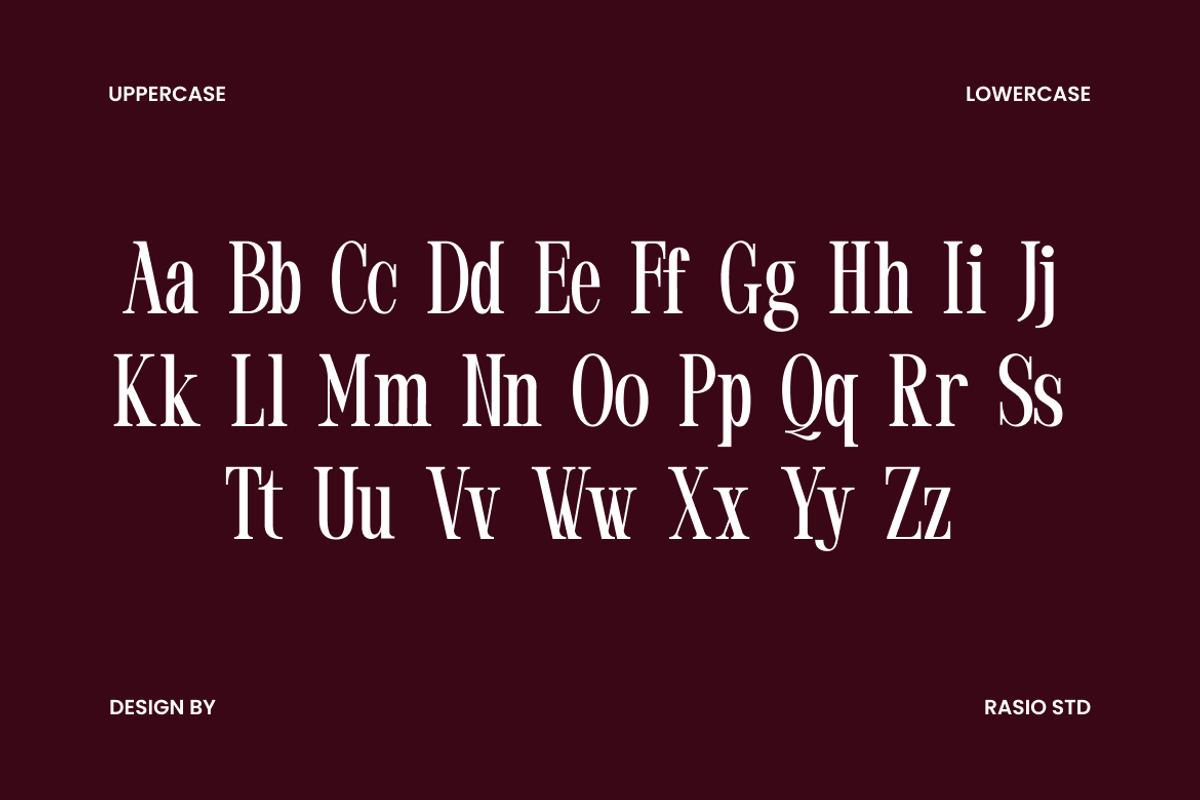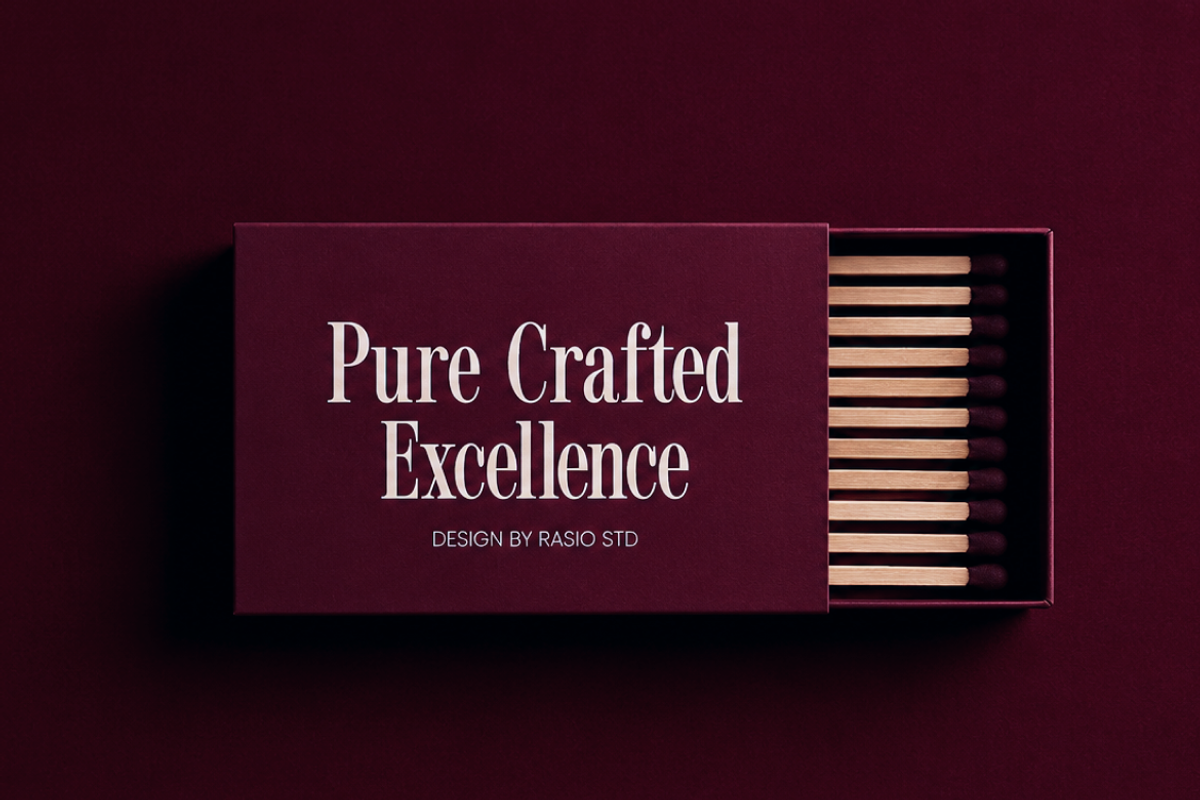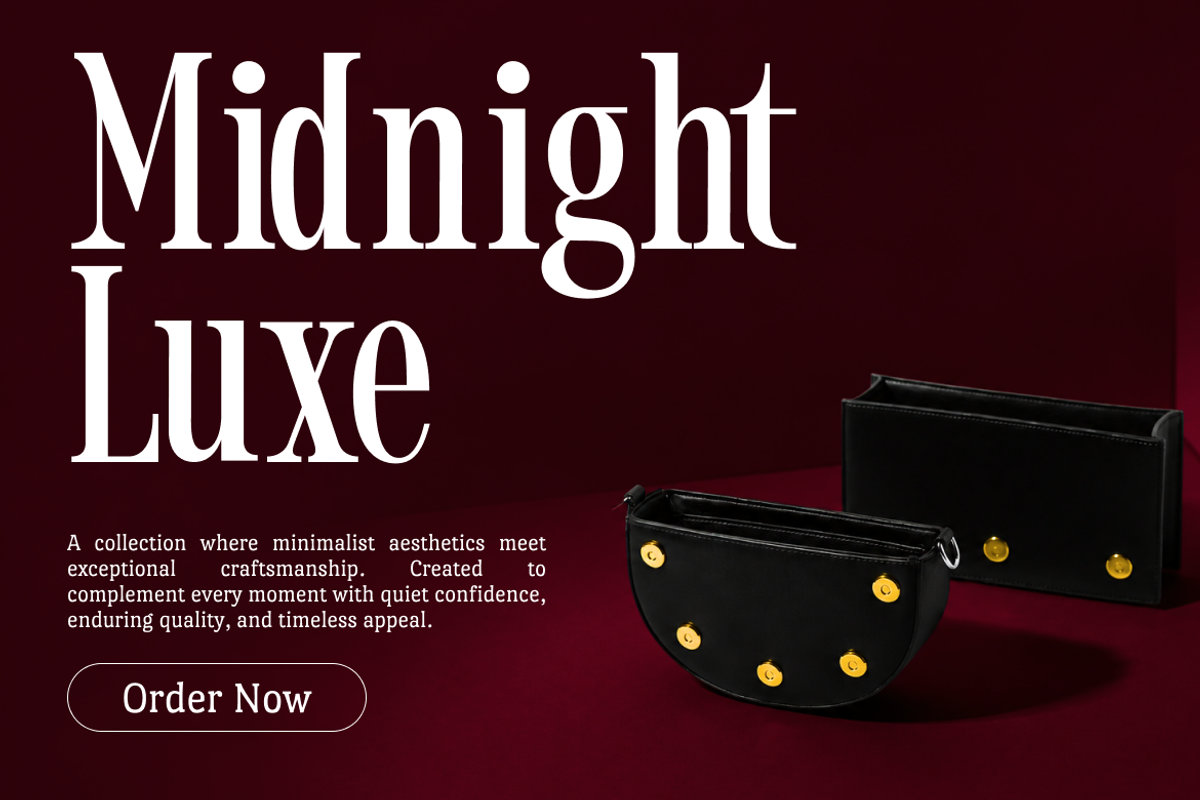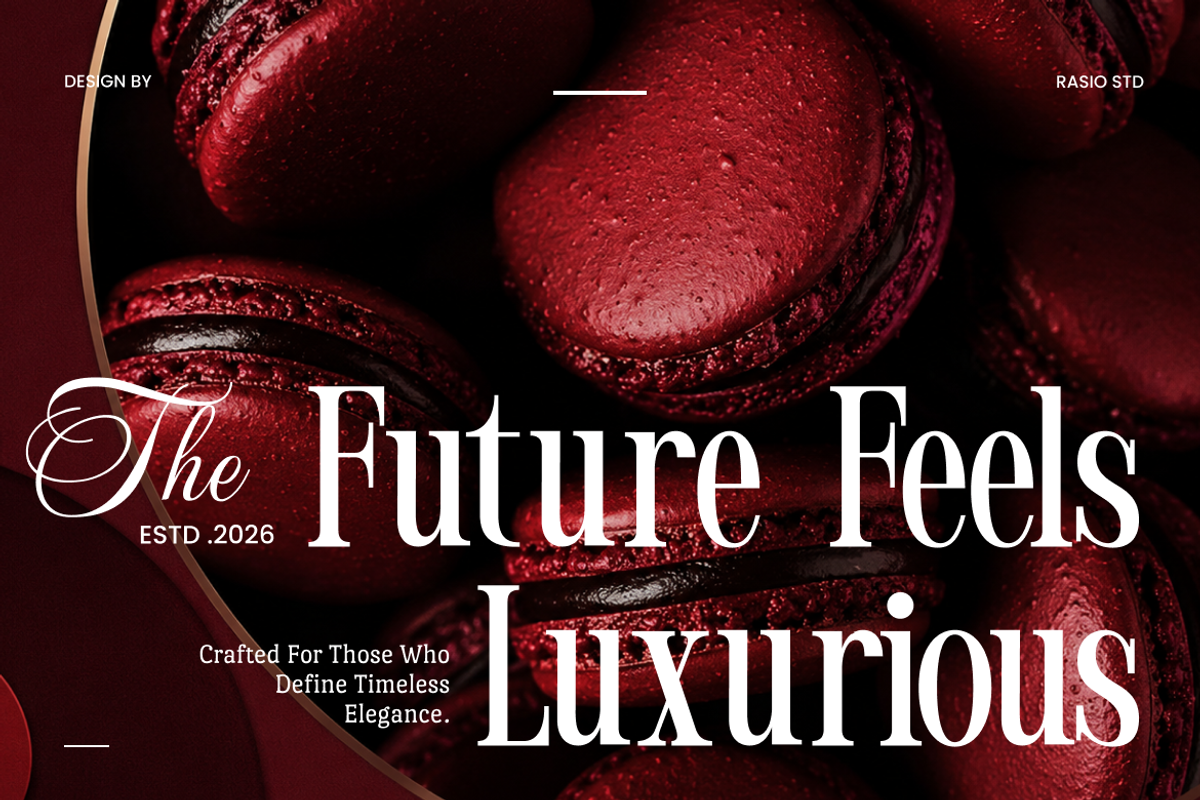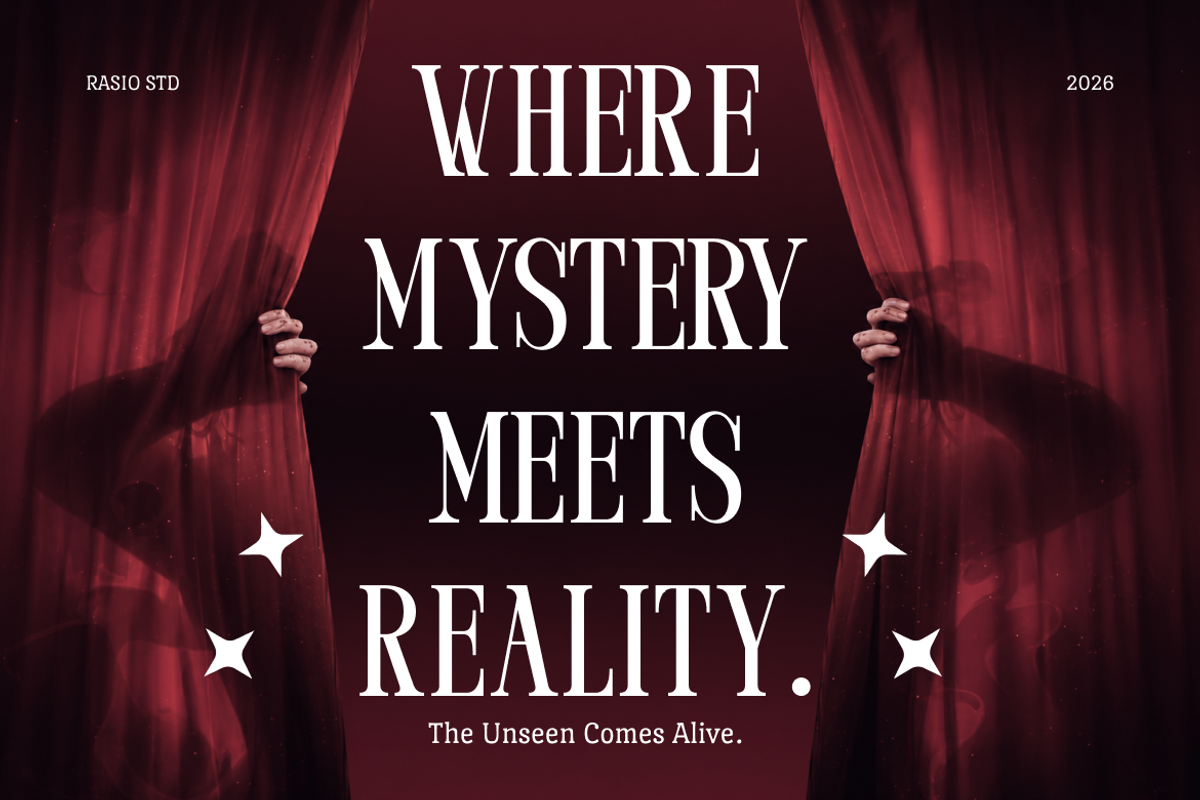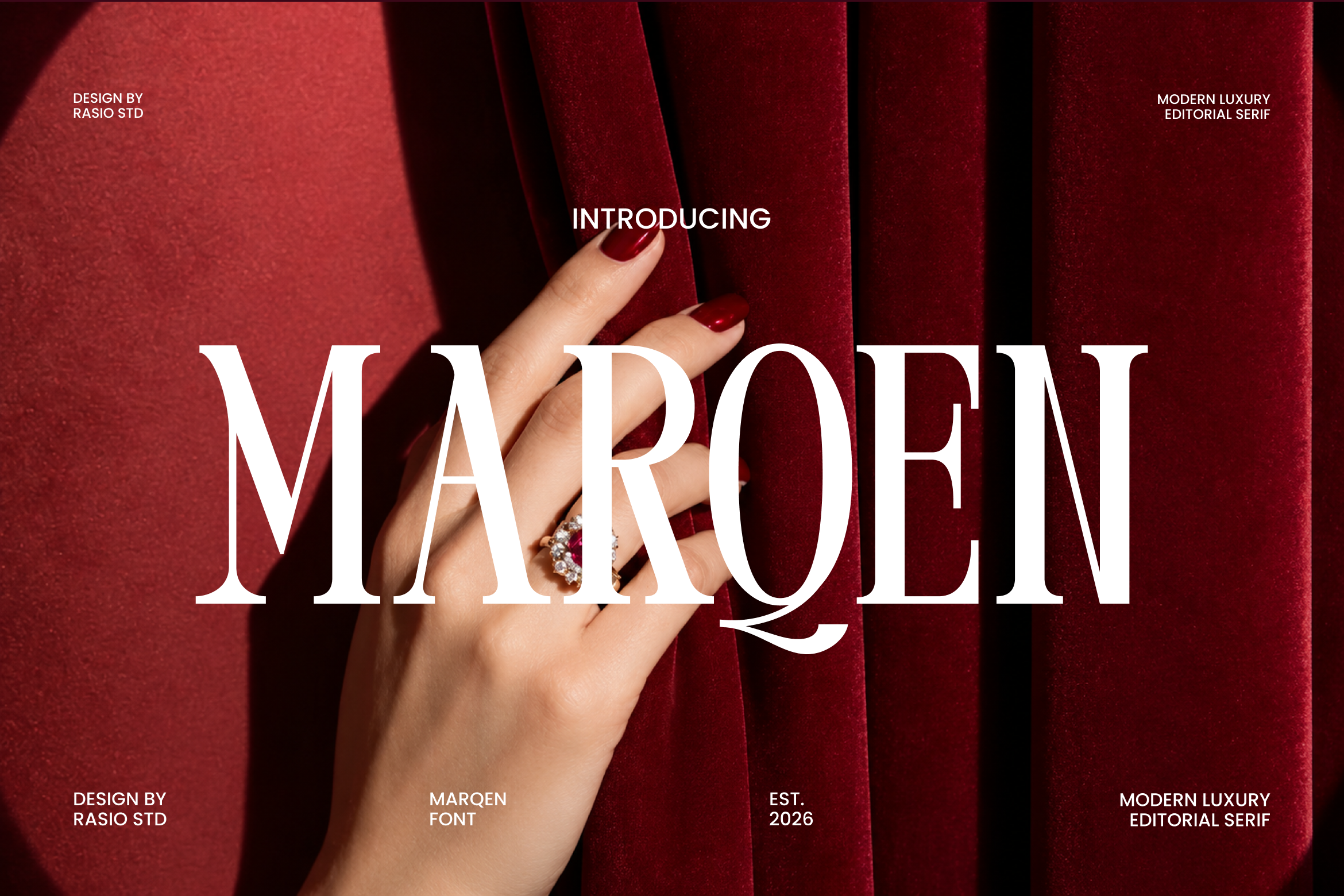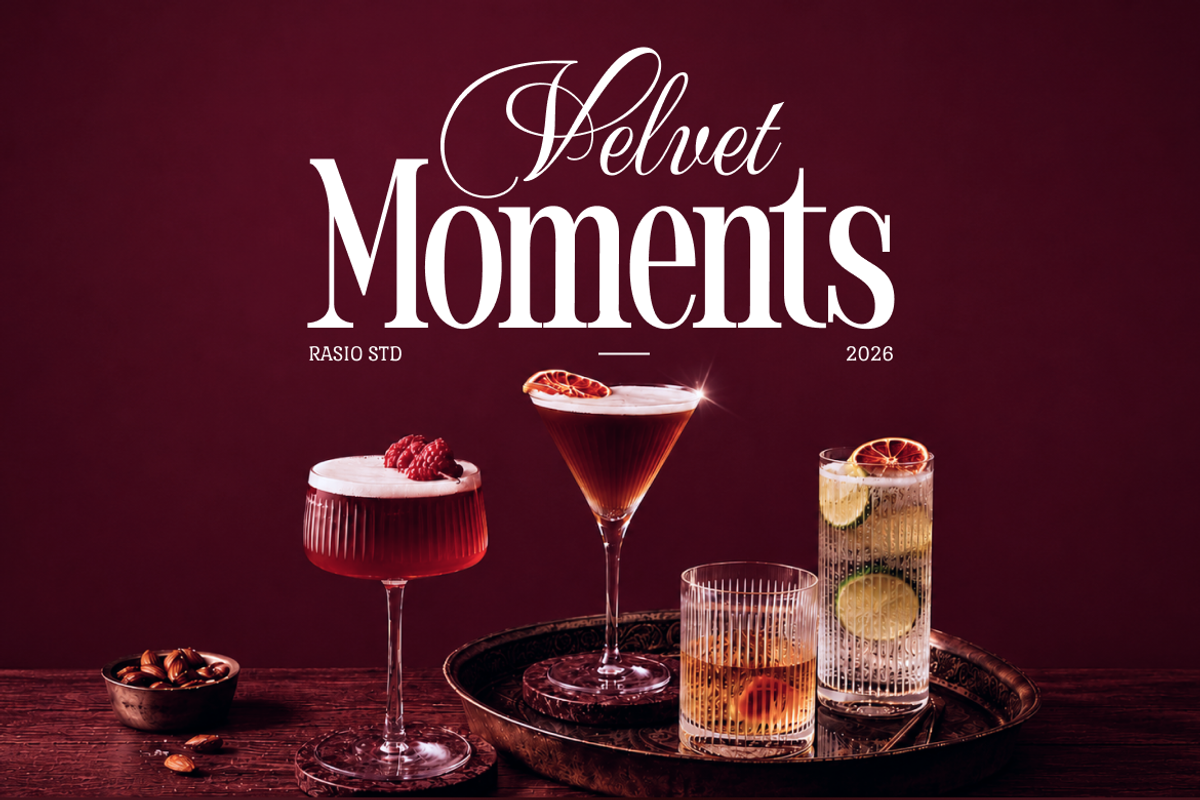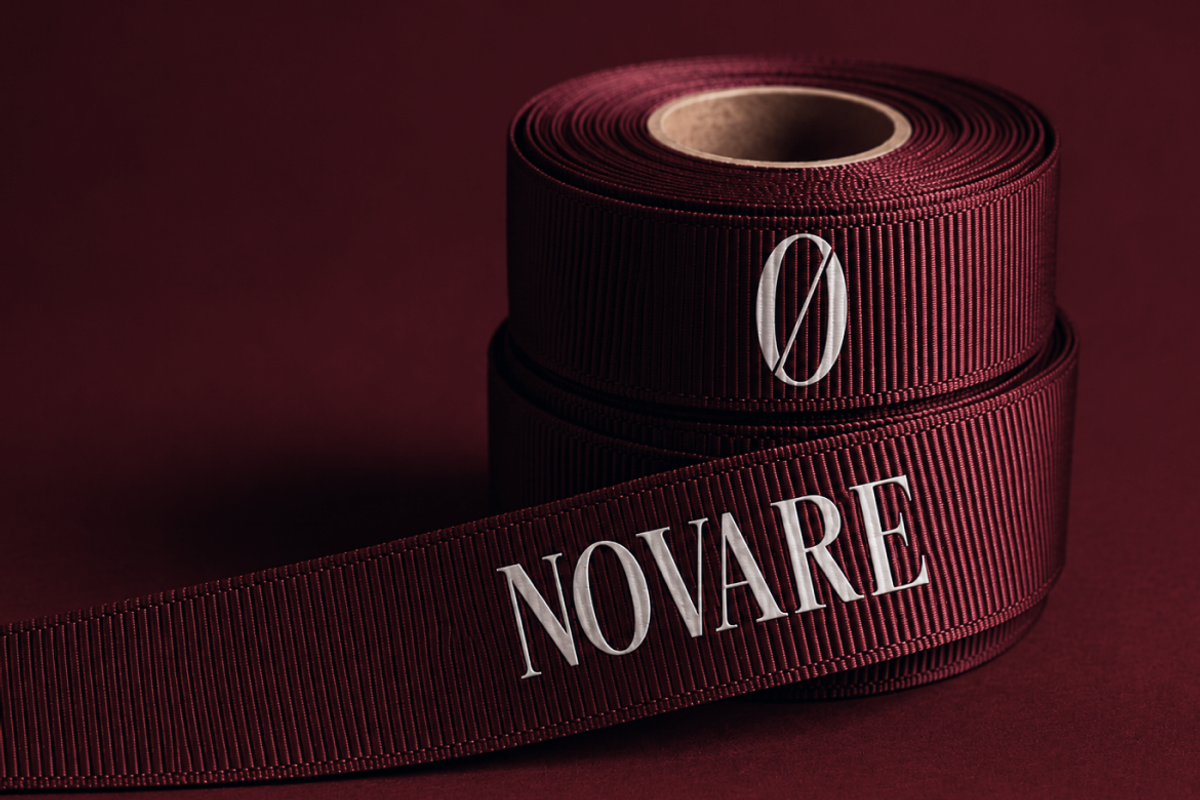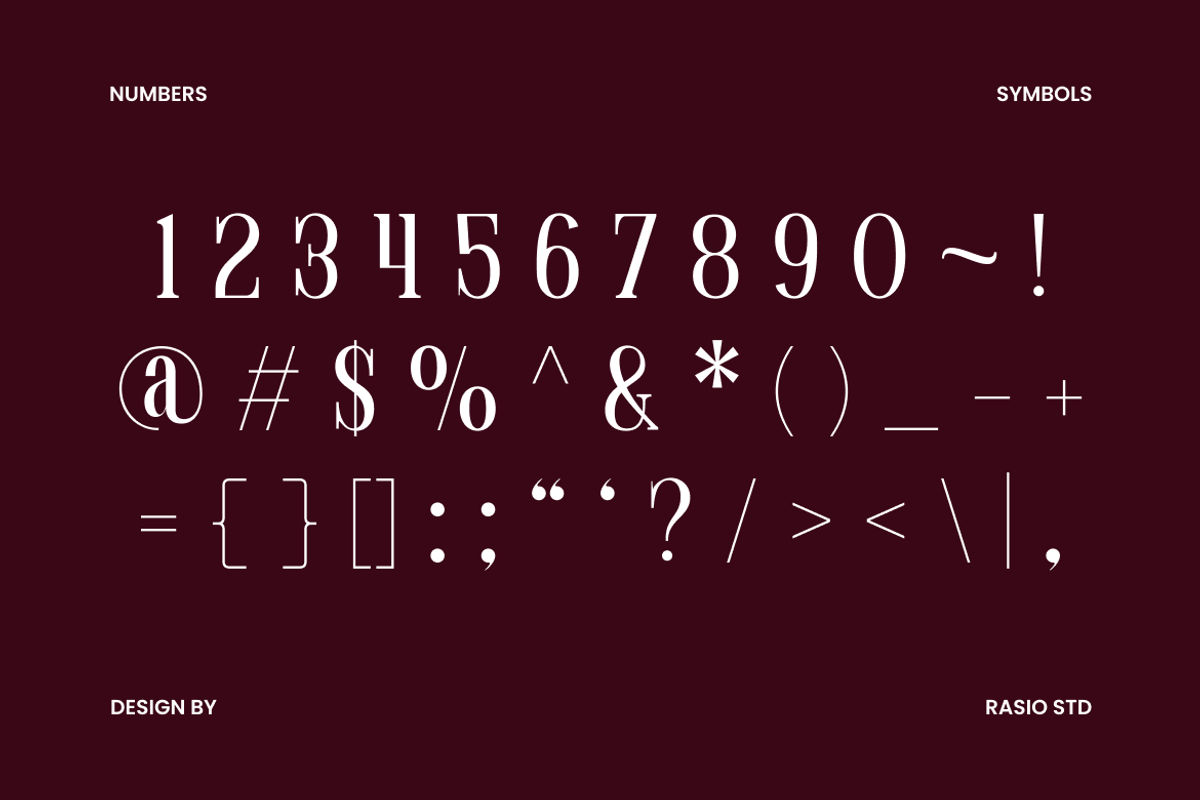
Marqen Modern Luxury Serif Font
Marqen Luxury Serif Font is a sophisticated condensed serif typeface characterized by tall proportions, striking stroke contrast, and refined sculpted letterforms. Its narrow structure creates a graceful vertical rhythm, while sharp serif details and smooth transitions between thick and thin strokes bring a polished editorial character. The elegant construction gives Marqen a commanding visual presence that feels luxurious, dramatic, and timeless without losing its contemporary appeal.
Designed for display-focused typography, Marqen brings distinction and sophistication to branding, editorial, and high-end creative projects. Its condensed proportions allow designers to create prominent headlines and large-scale typography while maintaining an elegant and controlled composition. The font includes uppercase and lowercase characters, numerals, and punctuation, providing essential flexibility for professional design applications. Whether used for luxury logos, magazine headlines, fashion campaigns, beauty branding, perfume packaging, jewelry identities, or premium promotional content, Marqen creates memorable typography with a refined and confident personality across both print and digital environments.
High-contrast serif construction with sharp transitions between thick and thin strokes
Tall, condensed letter proportions create a dramatic editorial presence
Refined serifs and sculpted curves bring a polished luxury character
Distinctive letter details add visual personality to prominent headlines
Balanced spacing supports elegant display compositions and large-scale typography
Luxury fashion branding and high-end visual identity systems
Editorial magazine covers, fashion features, and refined headline layouts
Beauty, jewelry, fragrance, and premium cosmetic packaging
Boutique logos and upscale brand marks requiring a sophisticated presence
Wedding stationery, elegant invitations, and exclusive event materials
Supports numerals, punctuation, and extensive symbol set